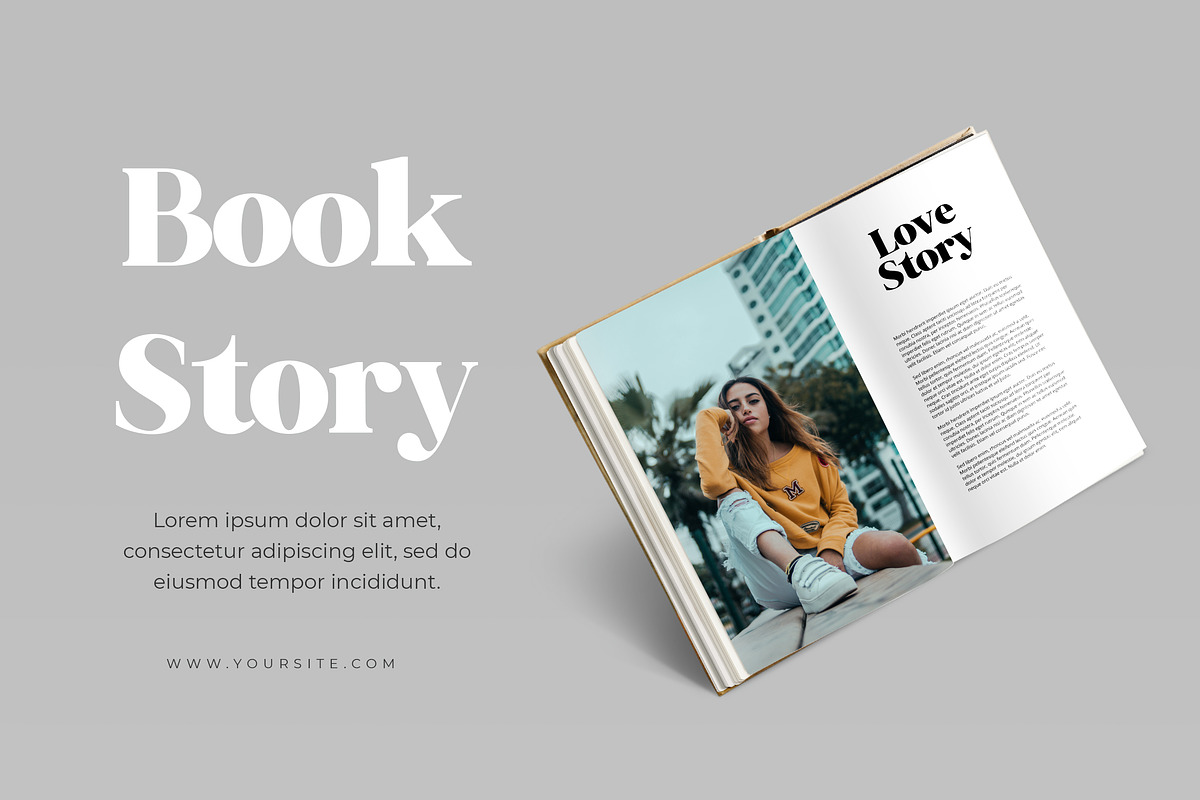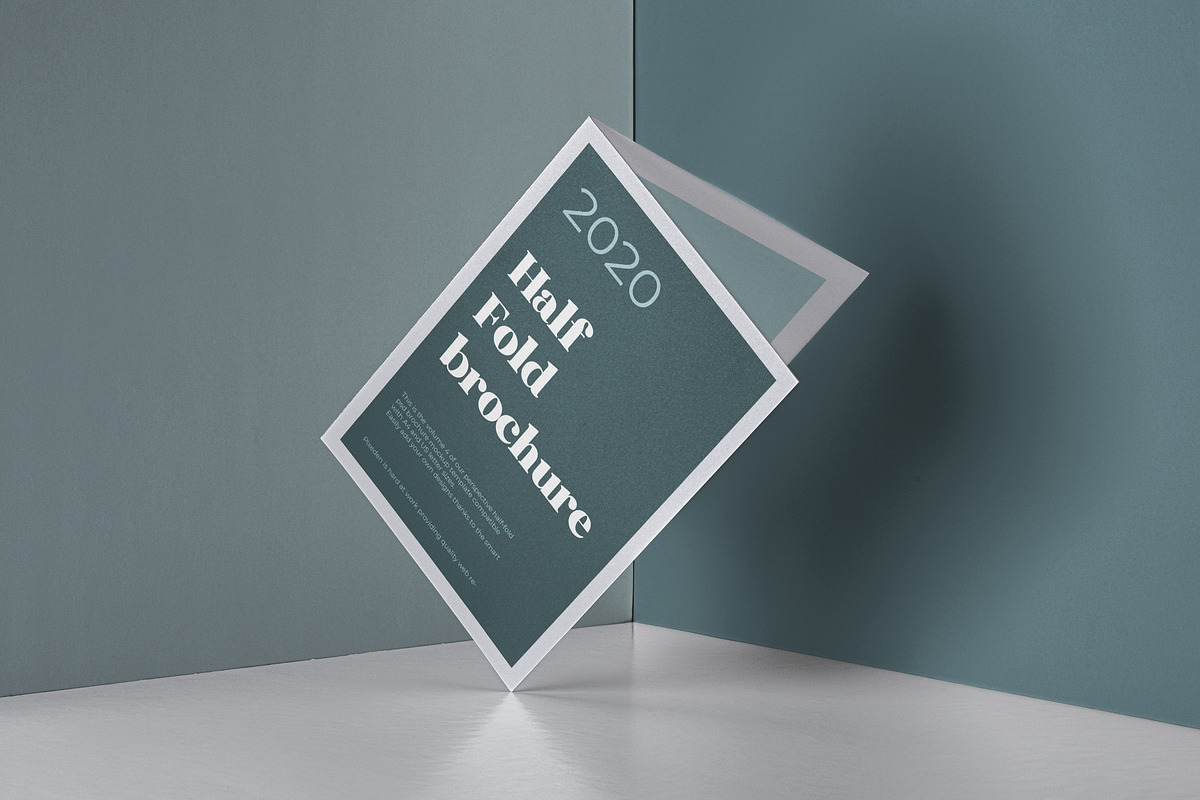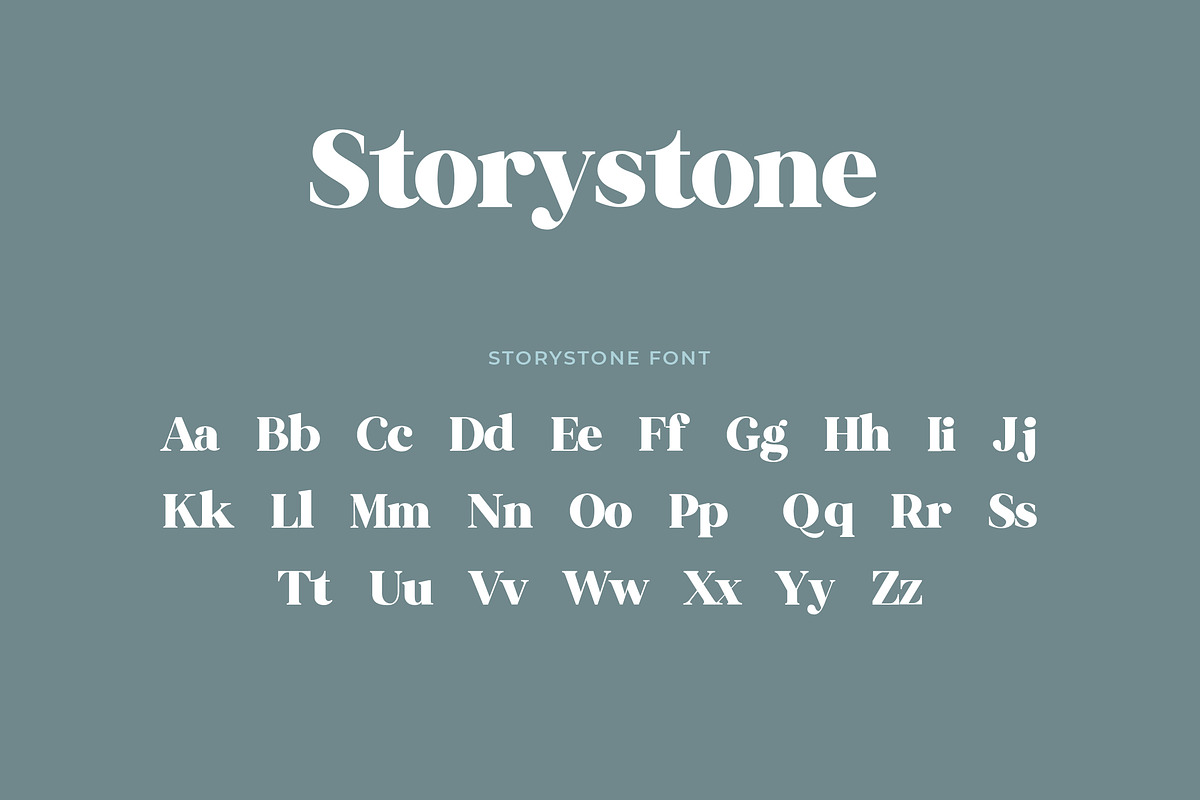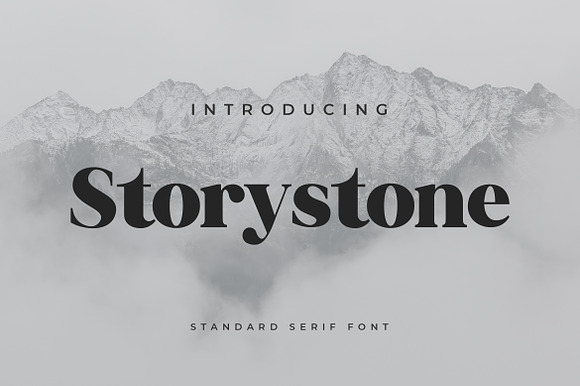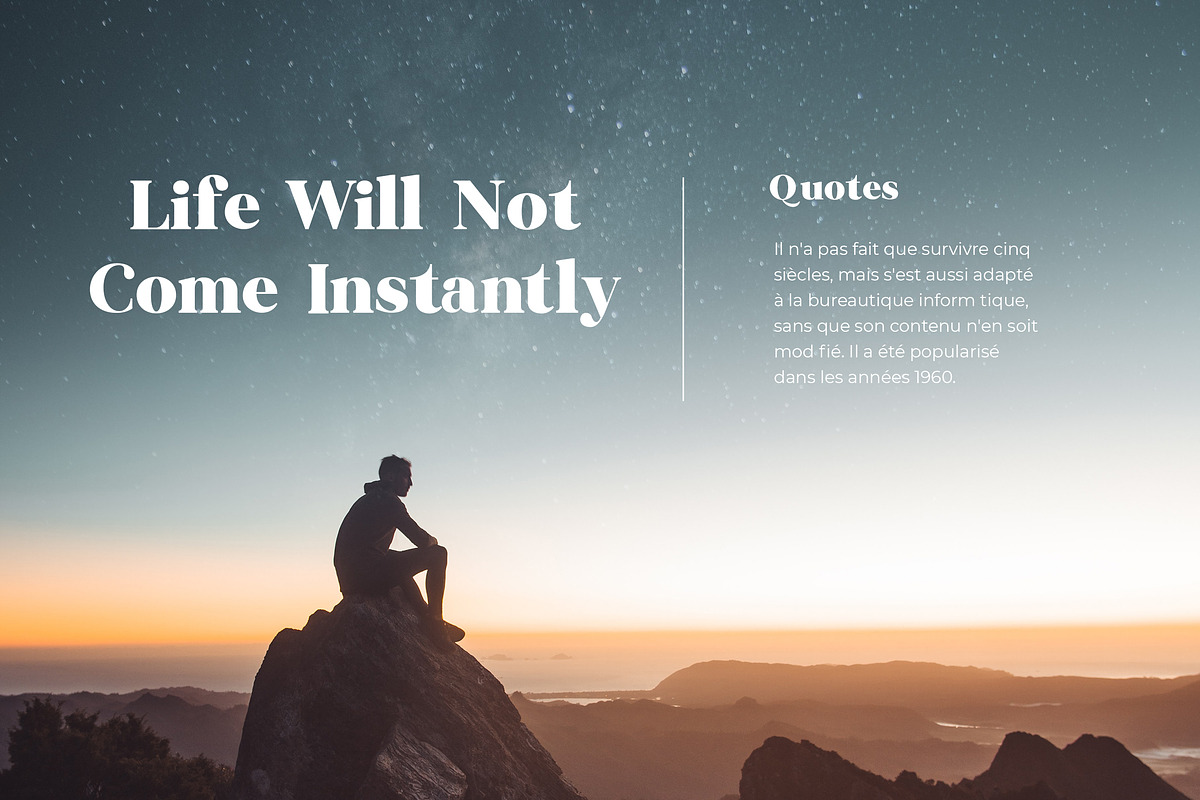
Storystone Serif Font
Storystone is serif font that combines classic style fonts moderated with a touch of minimalist design, produces beautiful and elegant fonts. Explore your design style more easily, with various alternative styles that allow for logos, posters, covers, main packaging, t-shirts, business cards, wedding cards, quotes, titles, magazines headings, web layouts, advertising, invitations, packaging design, books, and nearly any creative design. and more, so what are you waiting for?